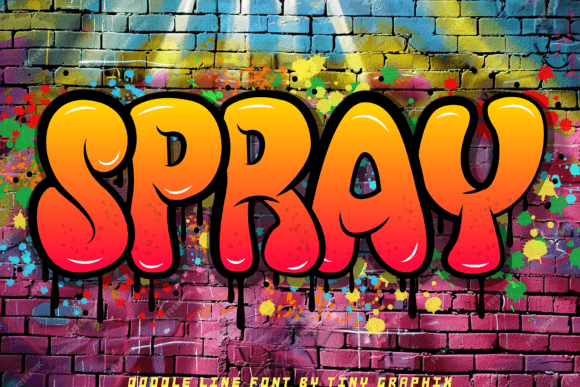
Doodle Line Font
Elevate your designs with Urban Revolution, our graffiti font that combines bold, dynamic lines with an authentic street art vibe. Perfect for grabbing attention and making a statement in any project. The DOODLE LINE FONT is a unique and fun graffiti display font, ideal for branding, and logo designs, and especially great for games. It’s perfect for cartoons, branding, and logos, giving you a modern and cool look.